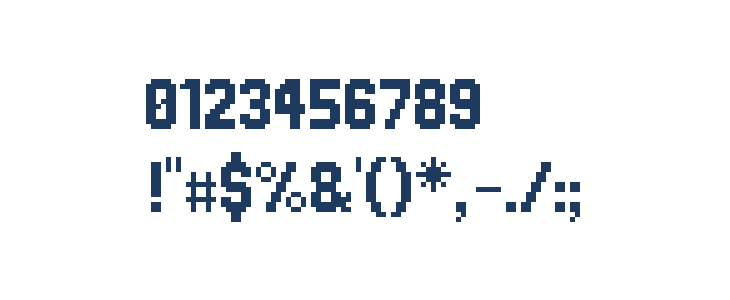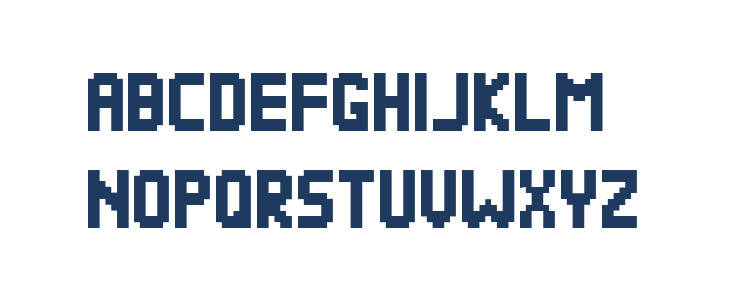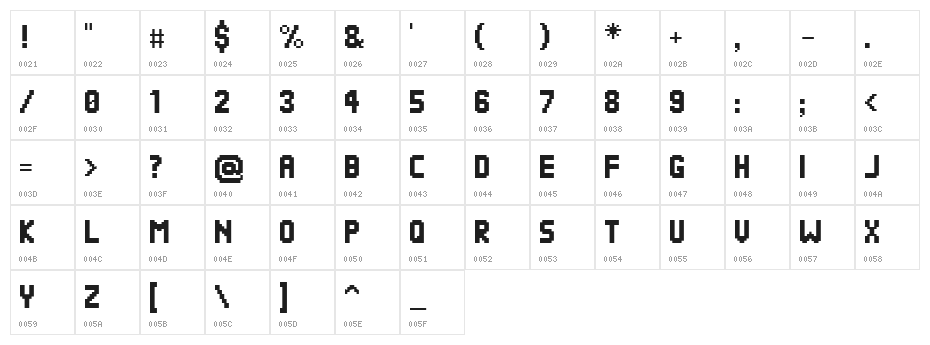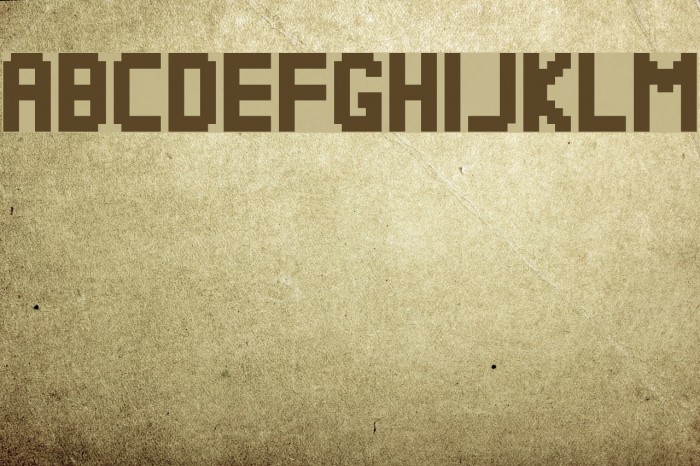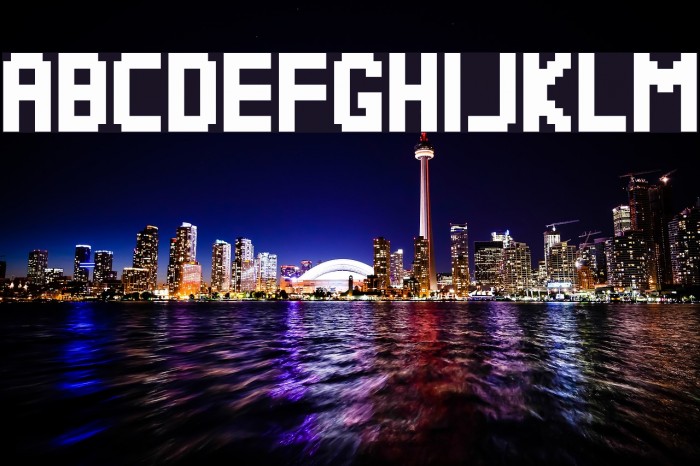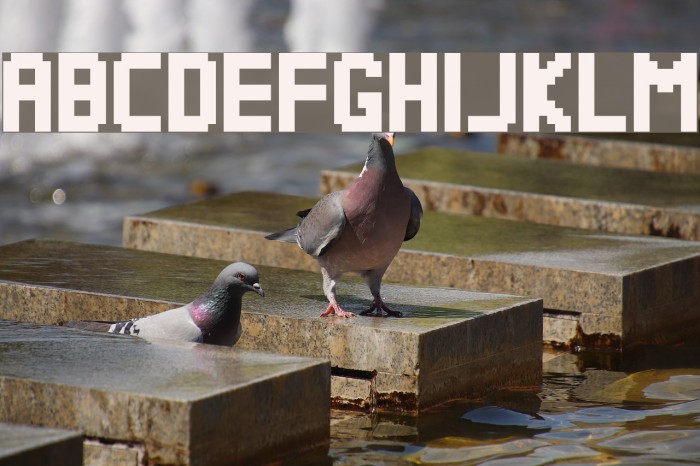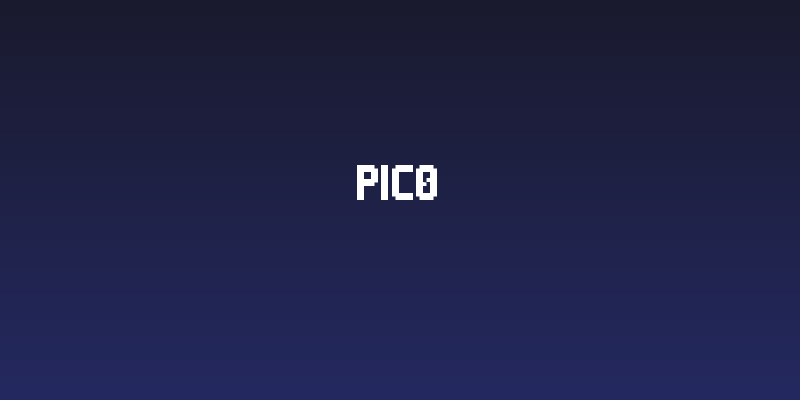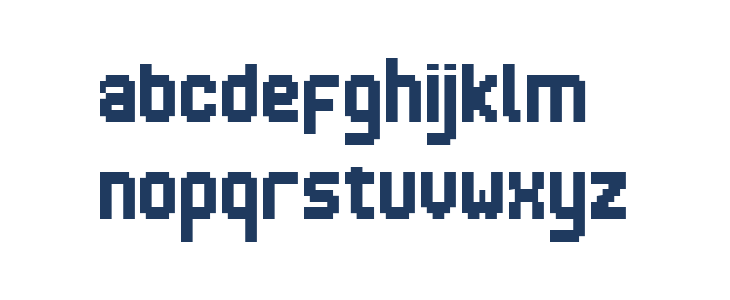
Pic0 Font
This font features a bold, blocky design reminiscent of classic pixel art, often seen in retro video games. Each character is constructed with a uniform grid-like structure, giving it a distinctly digital appearance. The uppercase and lowercase letters maintain a consistent height, enhancing readability while preserving the nostalgic aesthetic. The numerals and special characters follow the same pixelated style, ensuring a cohesive look across all text elements. This font's simplicity and geometric precision make it ideal for projects that aim to evoke a sense of nostalgia or digital minimalism.
Overall StyleVintage
Use CaseLogos, Headlines, Digital Art
Proposed ProjectsIdeal for retro video game designs, digital art projects, and nostalgic branding.